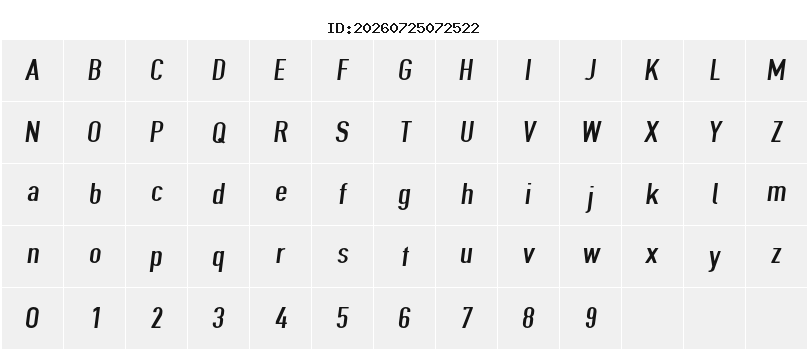
Give A Hoot Preview
• Font Name: Give A Hoot
• Font Style: ExtObl
• Font ID: Give A Hoot Extended Oblique
• Full Font Name: Give A Hoot Extended Oblique
About Give A Hoot.otf
Give A Hoot.otf is a modern, elegant sans-serif font designed for ultimate readability and visual harmony. Perfect for branding, headlines, web design, and print materials.